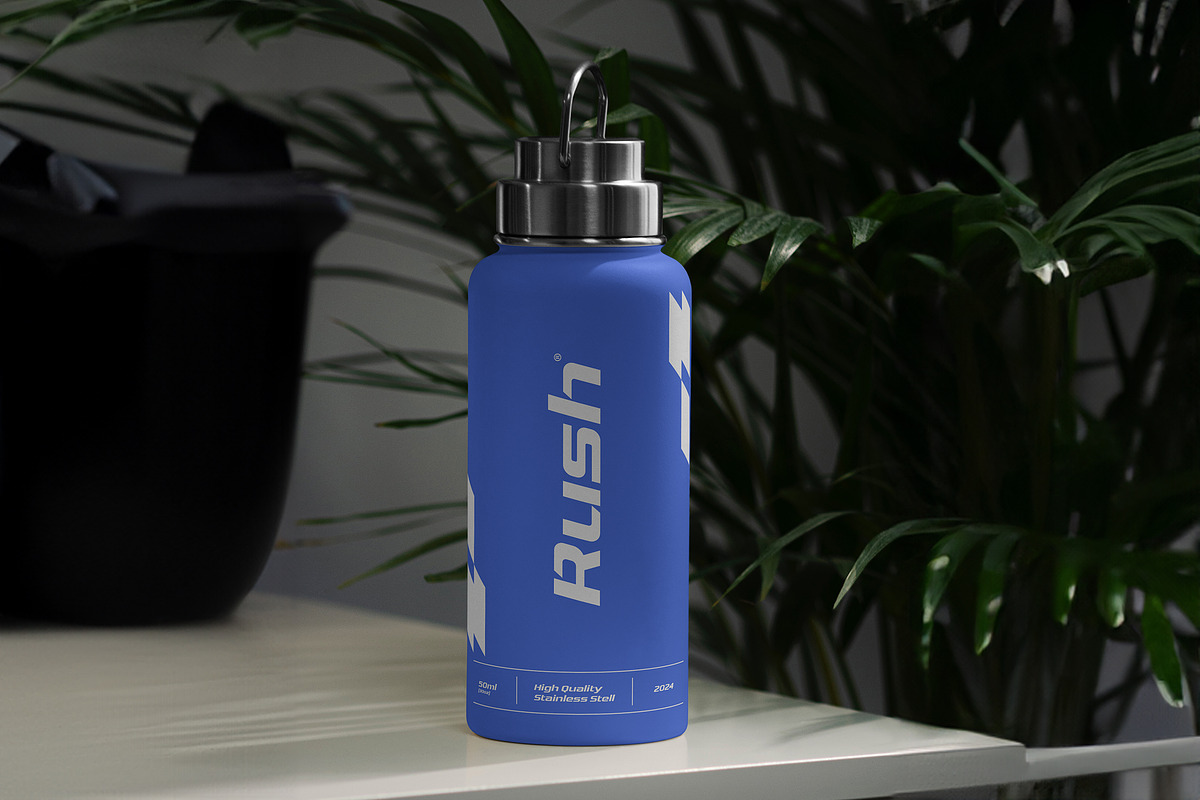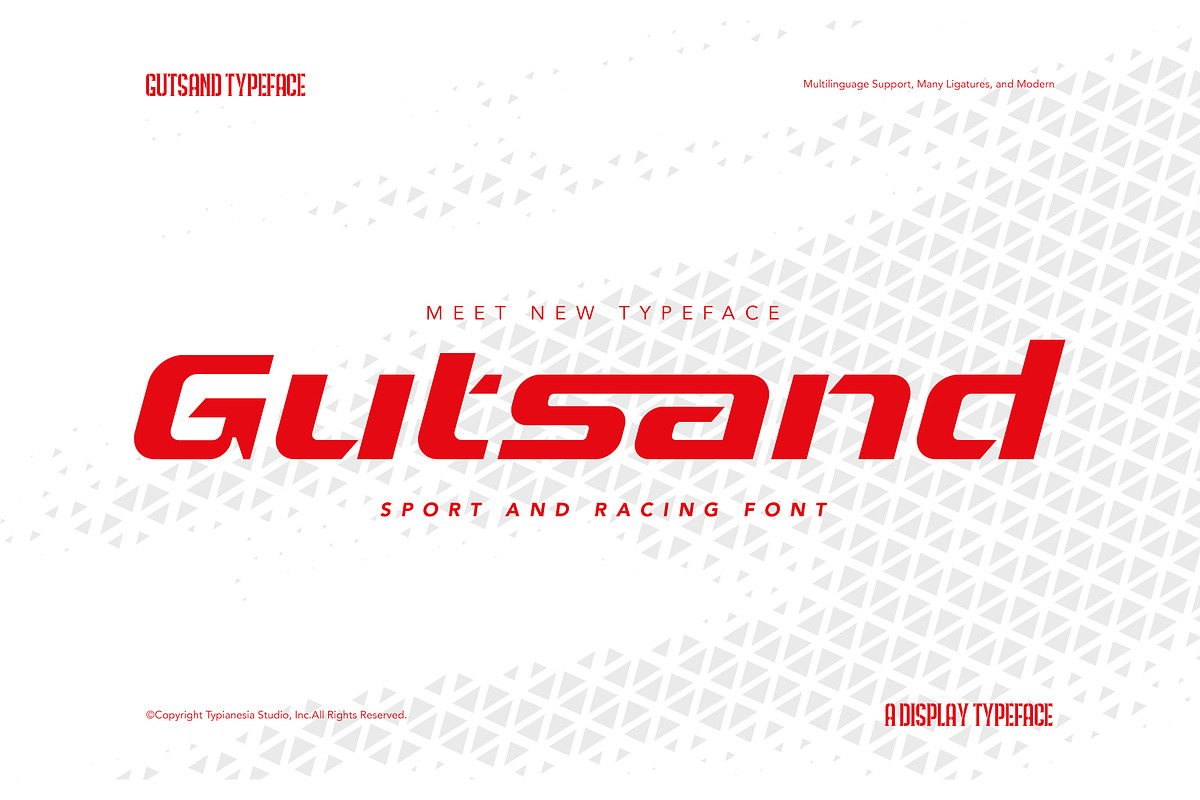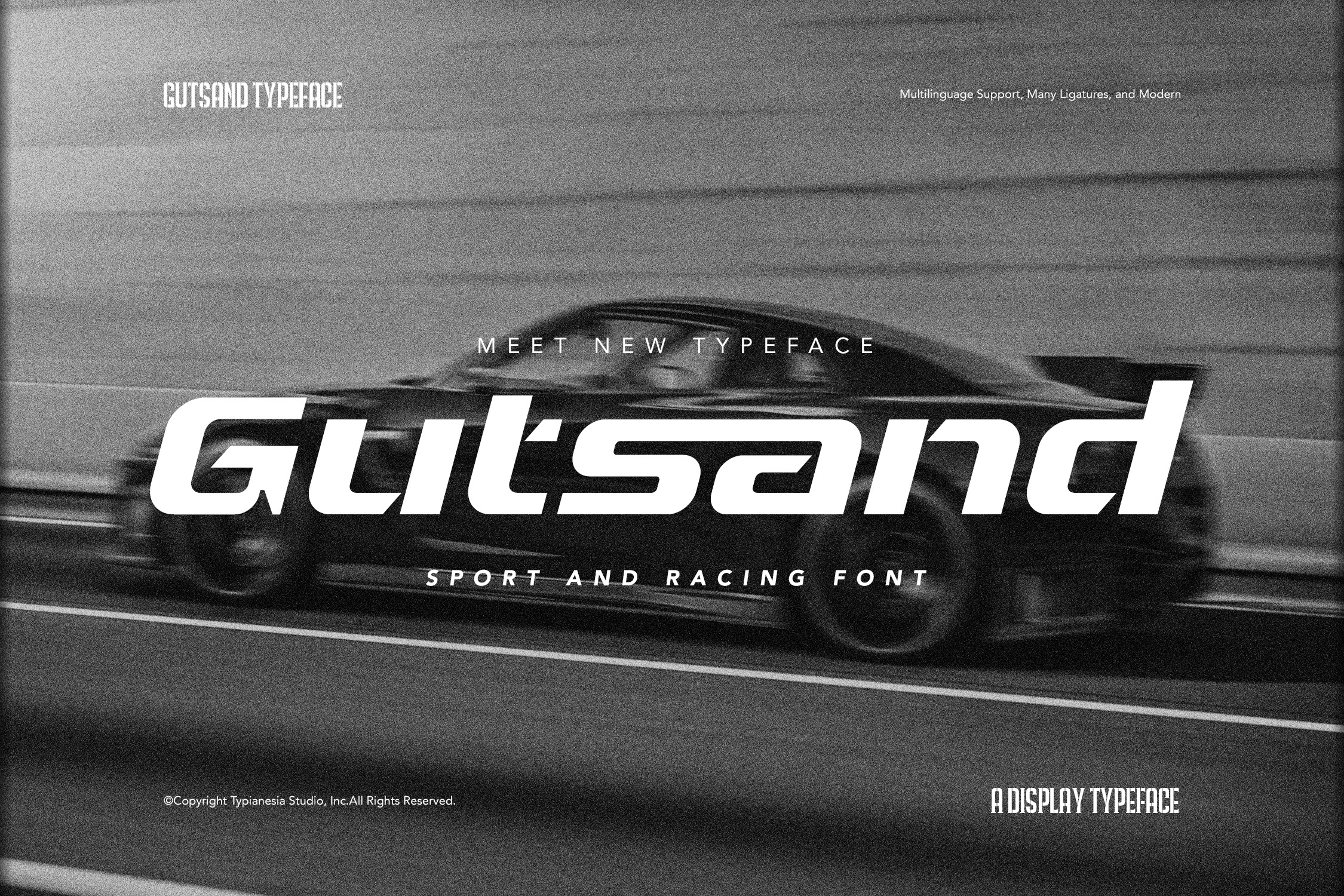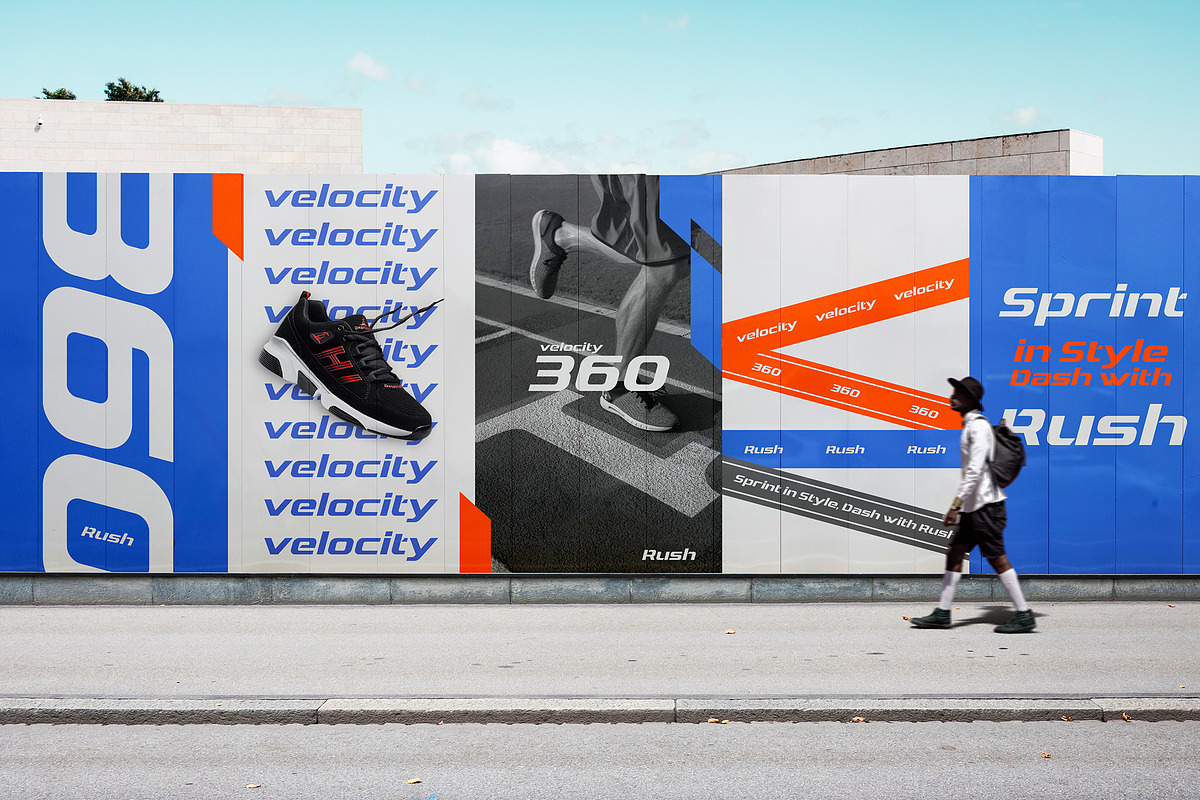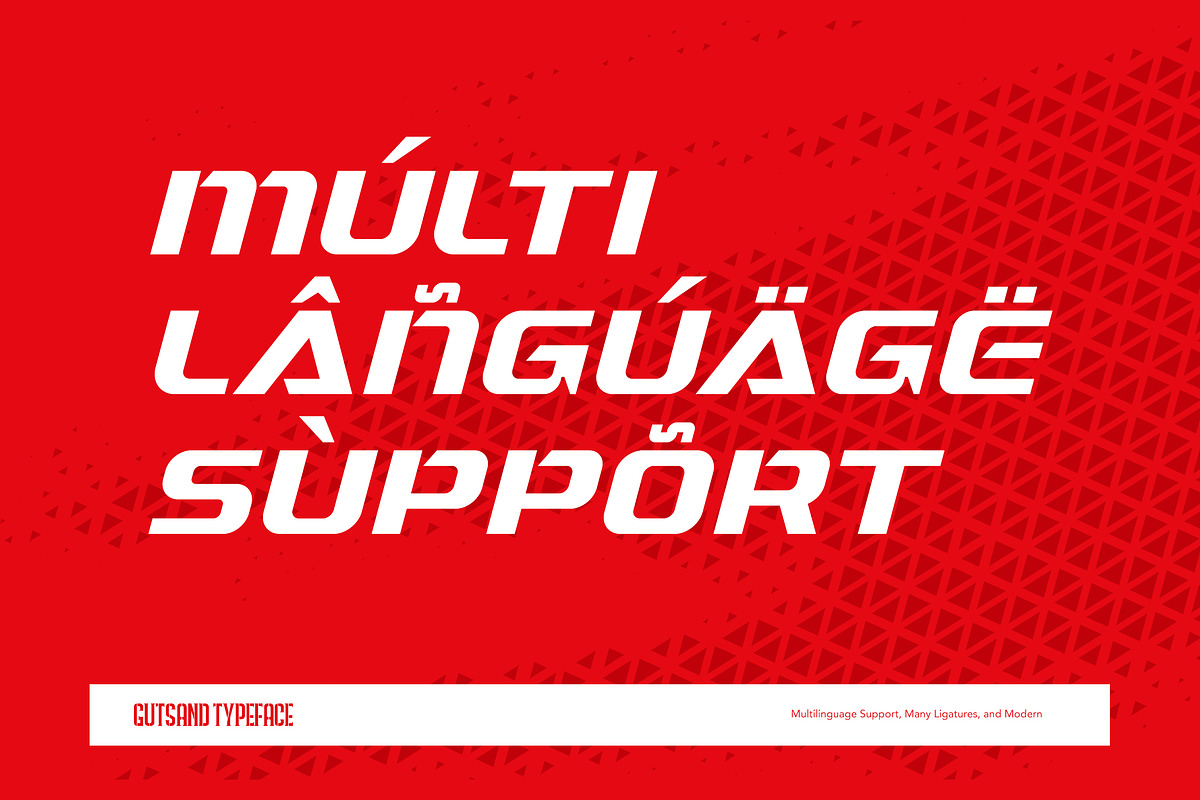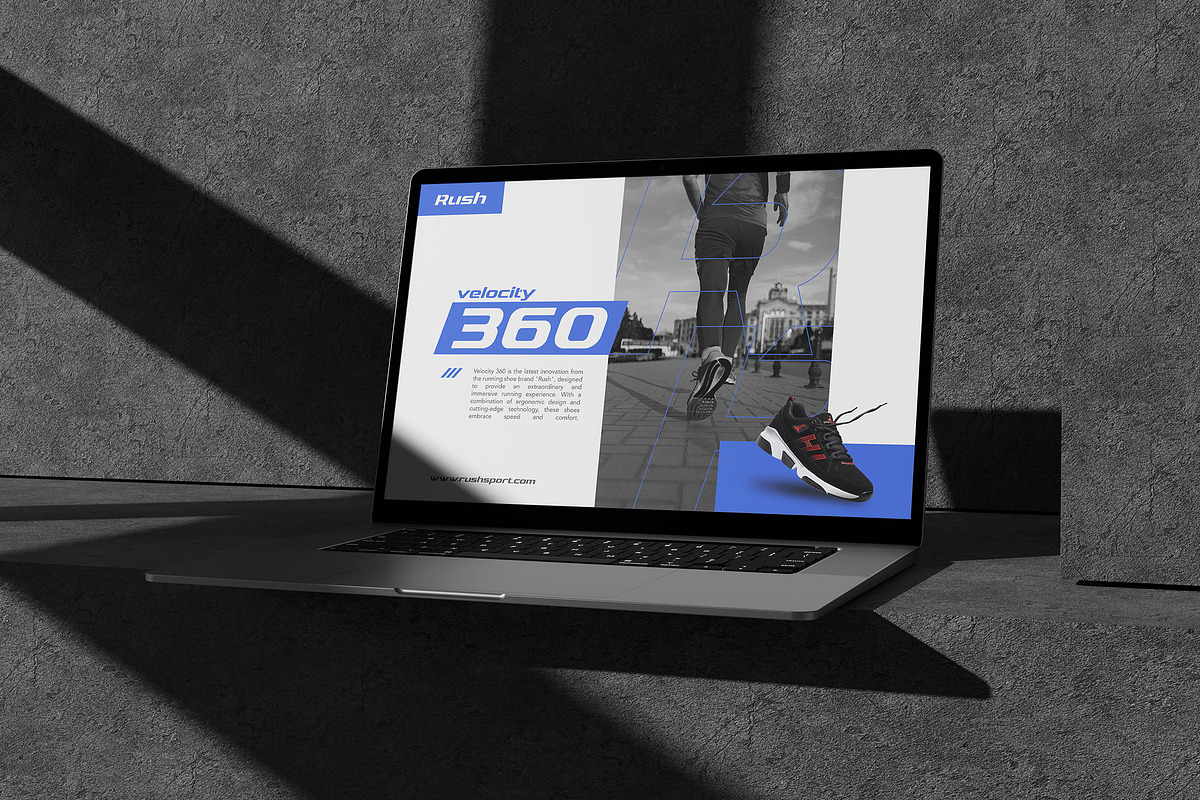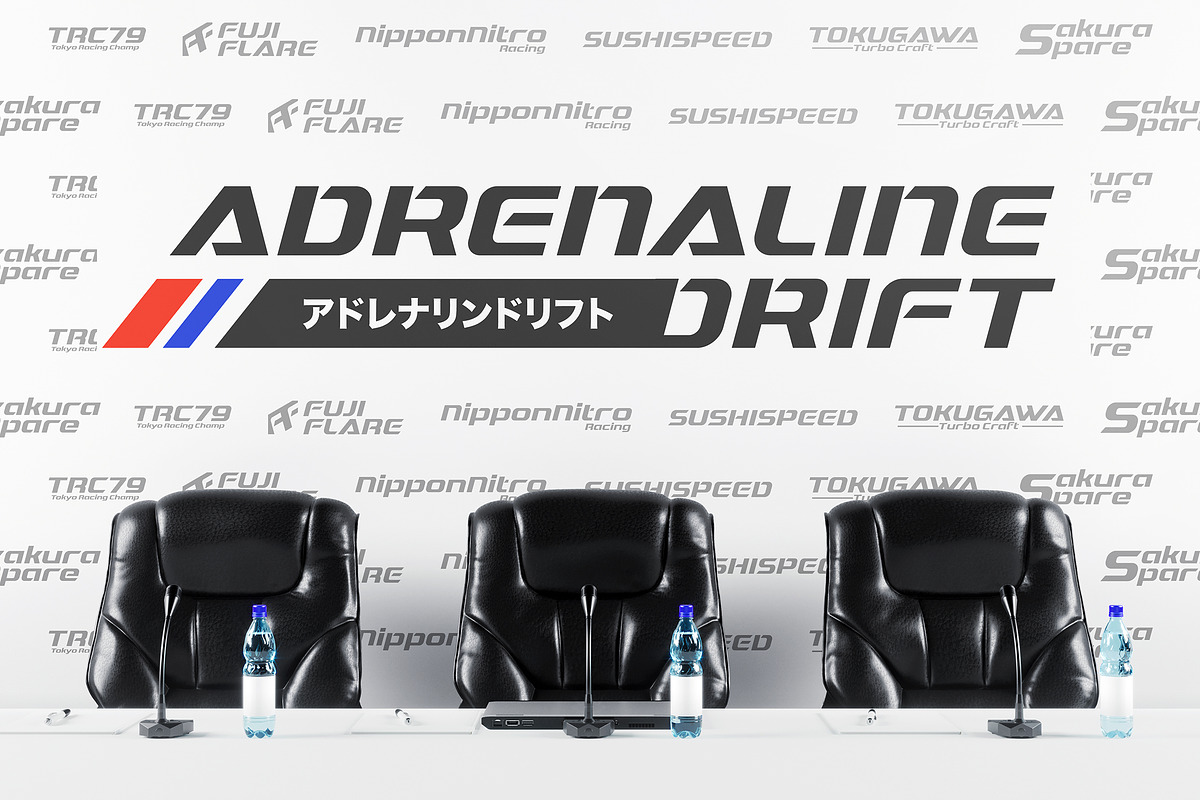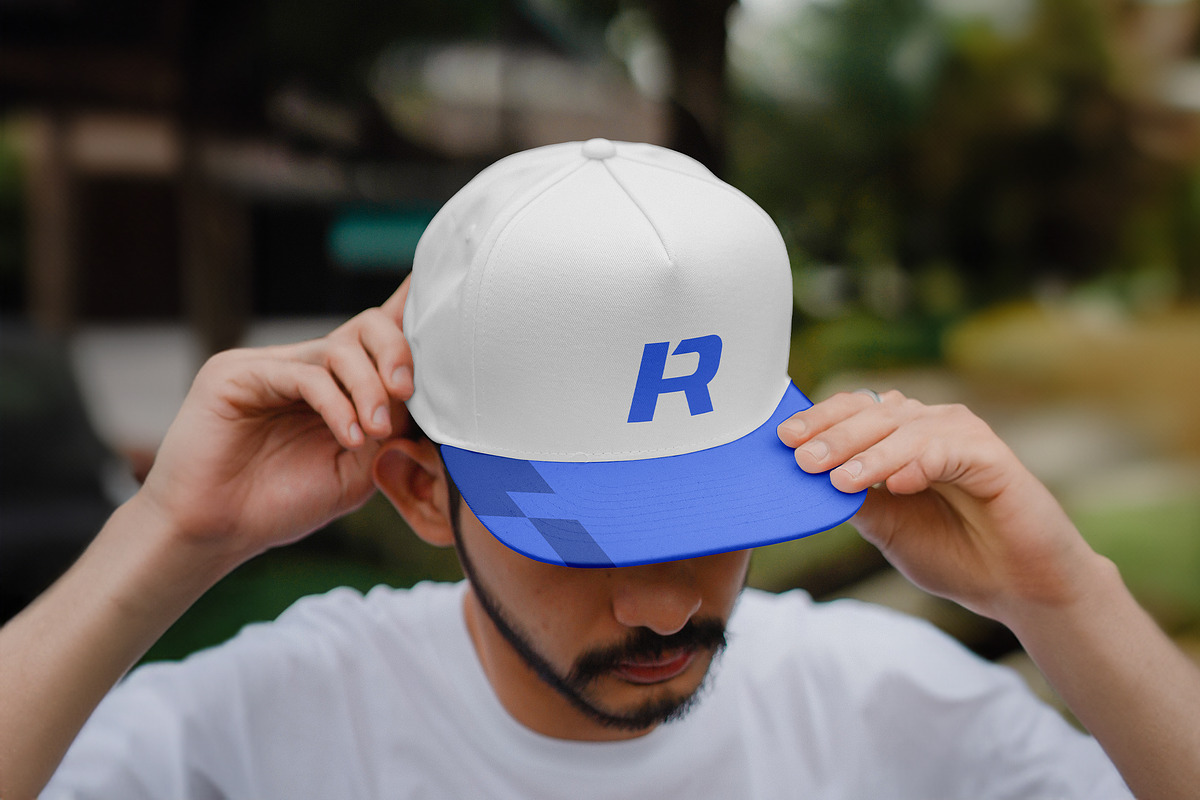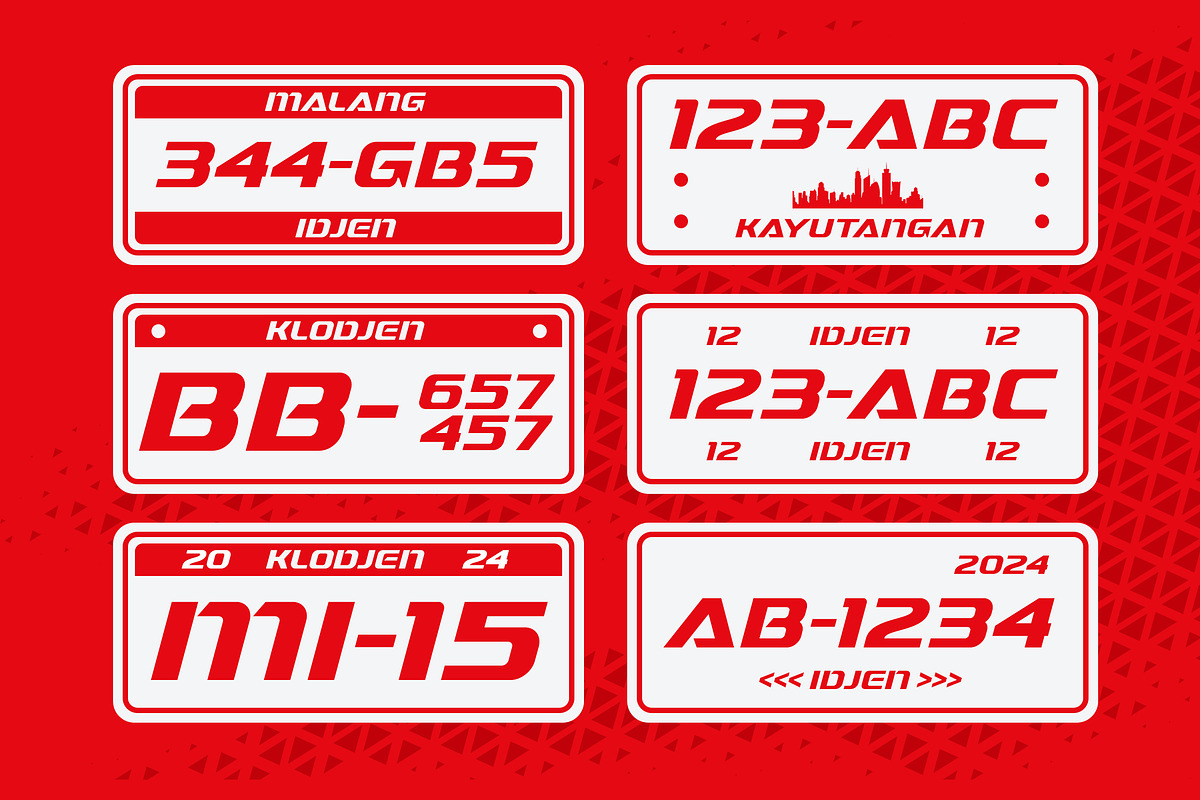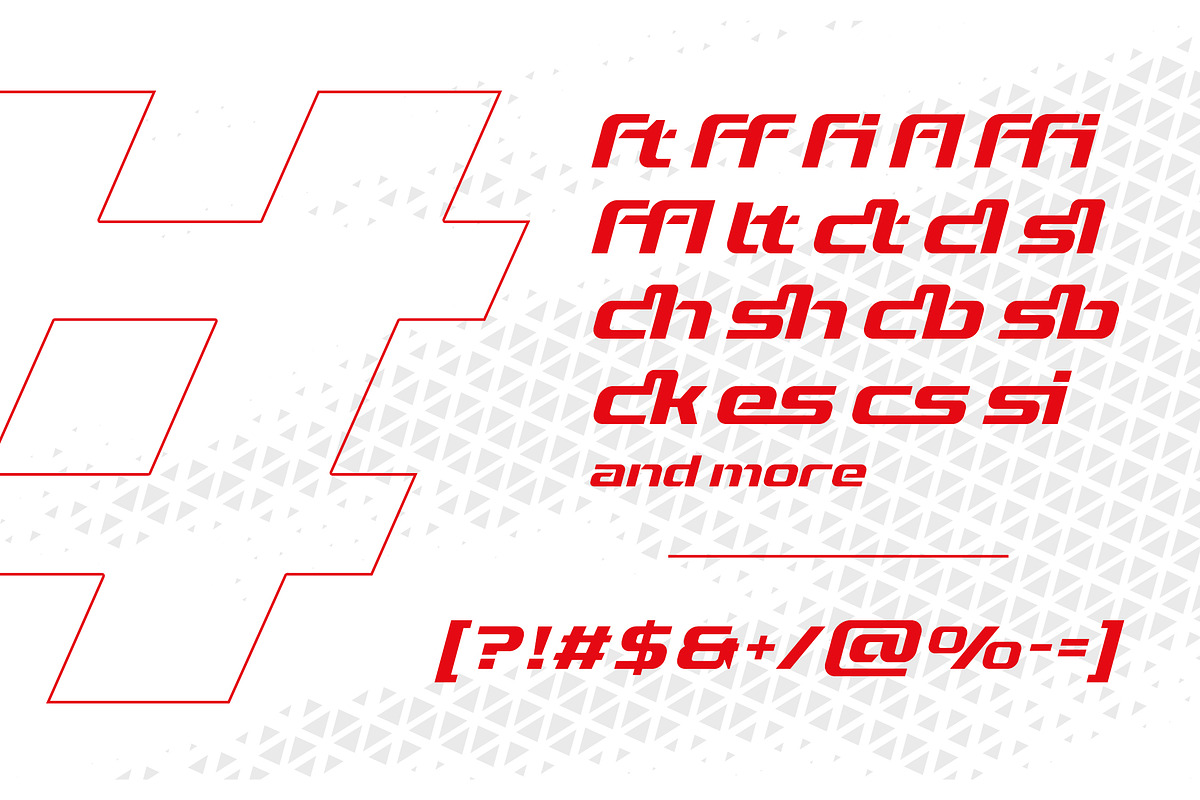
Gutsand - Sport and Racing Font
Gutsand - Sport & Racing Expanded Font - Modern Bold Display Font.
Gutsand is a dynamic sport and racing font that exudes energy and speed. Its bold letterforms and sharp edges are reminiscent of the adrenaline-fueled world of motorsports. Designed for sports-related projects, Gutsand is perfect for branding, signage, and merchandise associated with racing events, teams, and athletic activities. Its high-impact design ensures maximum visibility and communicates the excitement of the sporting world. Gutsand includes ligatures to enhance the seamless connection between characters. With comprehensive support for uppercase, lowercase, punctuation, numerals, and multilingual characters, it offers flexibility for global applications. Developed with expertise in typography and sports branding, Gutsand captures the essence of speed and competition, making it the ideal choice for conveying the thrill of the race track.